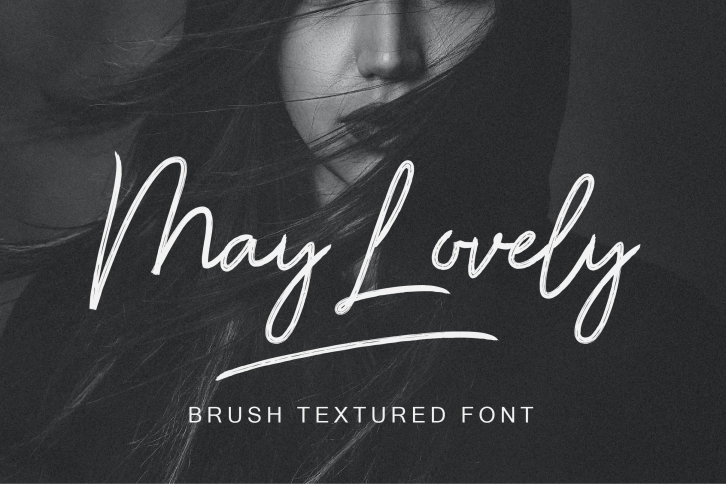
May Lovely FONT Download
May Lovely Font Download
May Lovely is an elegant script font with a contemporary atmosphere and impeccable form, inspired by timeless classic calligraphy. Not too thin and not too thick, balanced and varied, this font was designed to enhance the beauty of your projects.